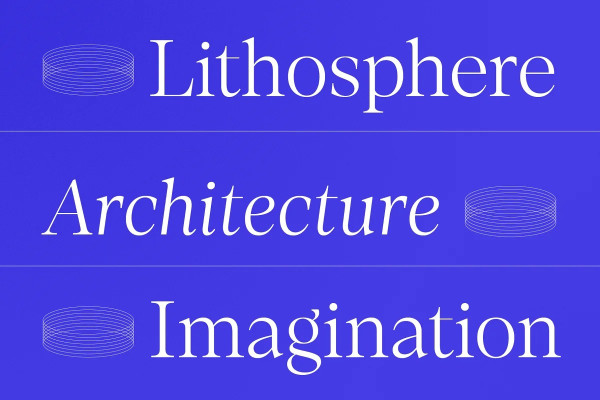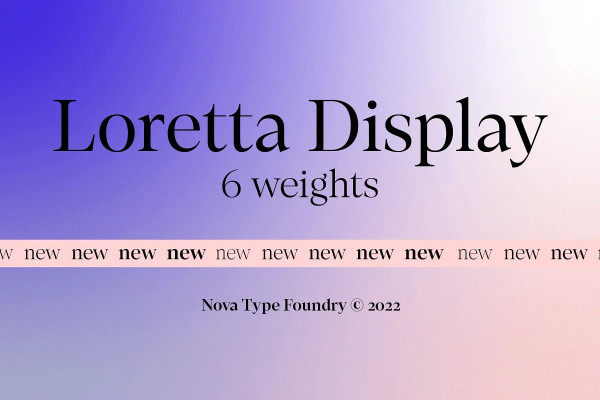
Loretta Display Font
Loretta Display Font. Lovely Hight contrast serif typeface. Elegant and great legibility. Beautiful for headlines on your blog or brand.